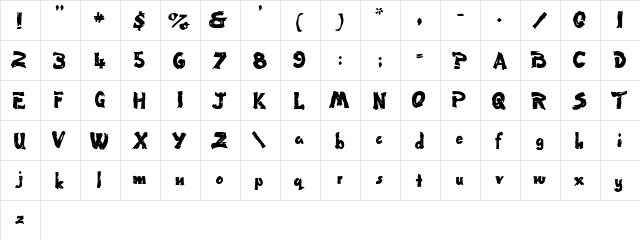
Arslannian Normal Font Preview
Arslannian Normal
Design Context for Arslannian Typeface
Arslannian is a composed and adaptable typeface that performs quietly and consistently across a wide range of design contexts.